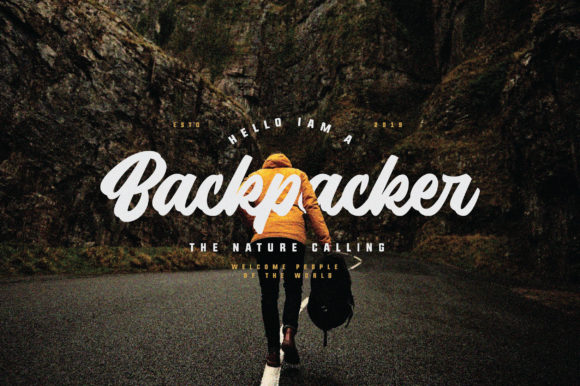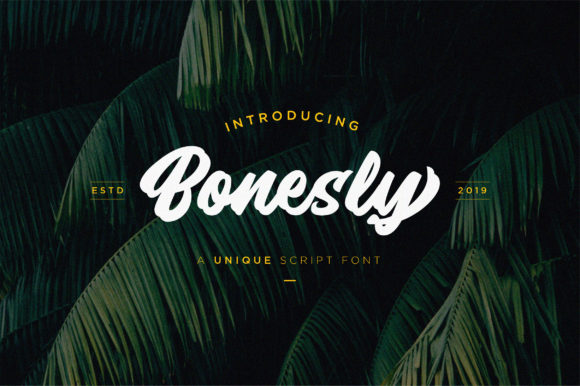
Bonesly Font
The Bonesly is an unique script font, allowing you to create beautiful hand-made typography in an instant. With its extra bouncy curves & loops, Bonesly is guaranteed to make your text stand out.Its lowercase alternate swashes allow you to create an authentic, custom feel.
It’s perfect for logos, printed quotes, invitations, cards, product packaging, headers, and whatever your imagination holds.